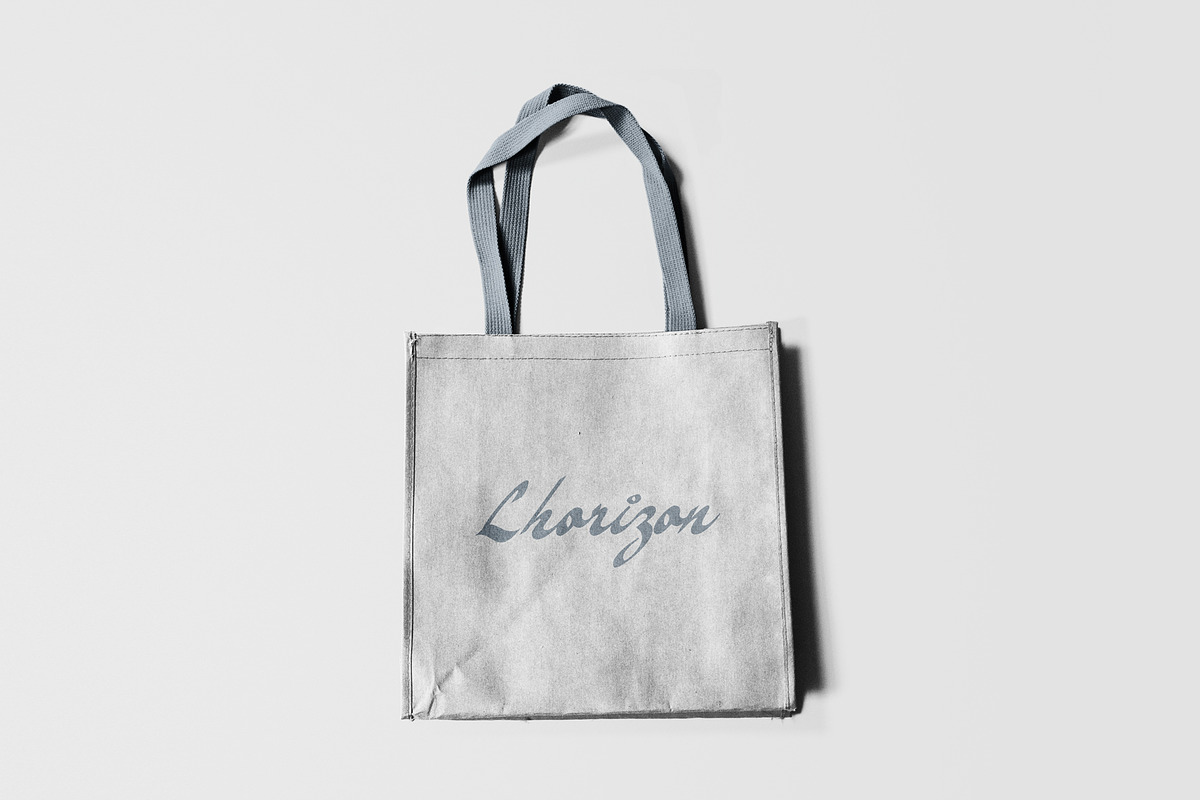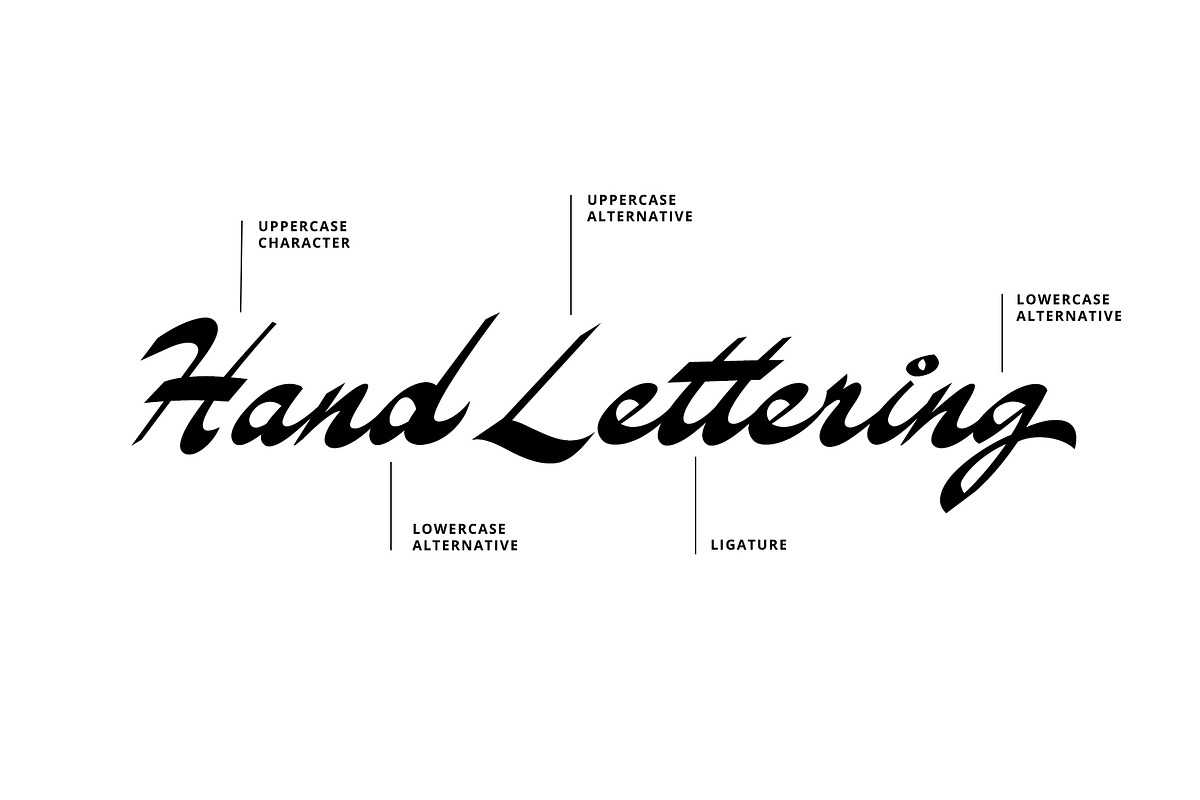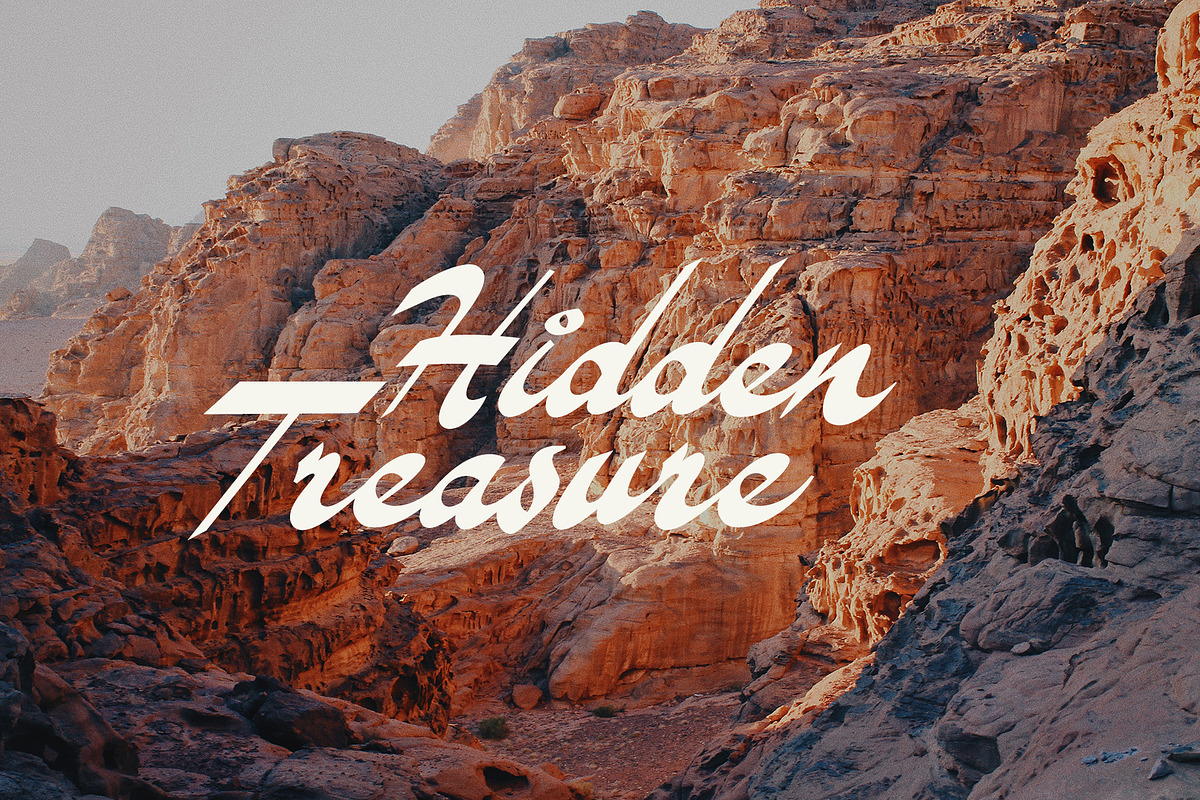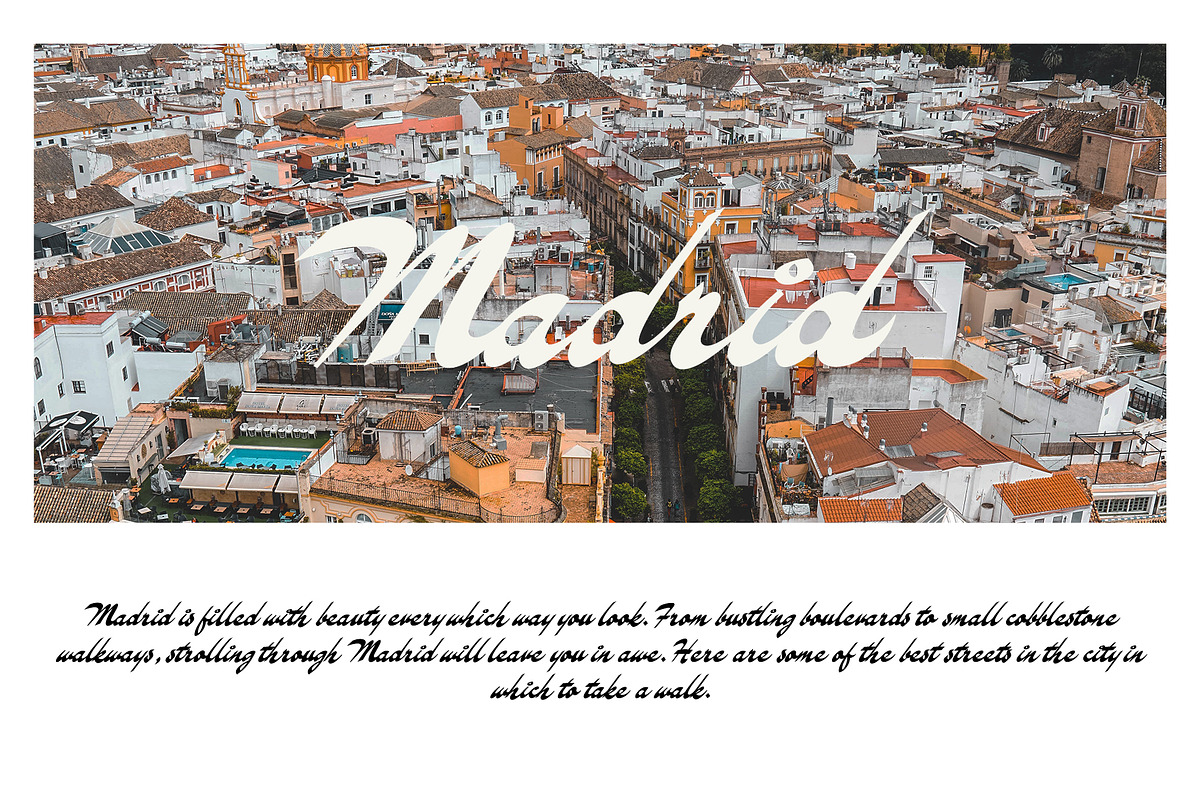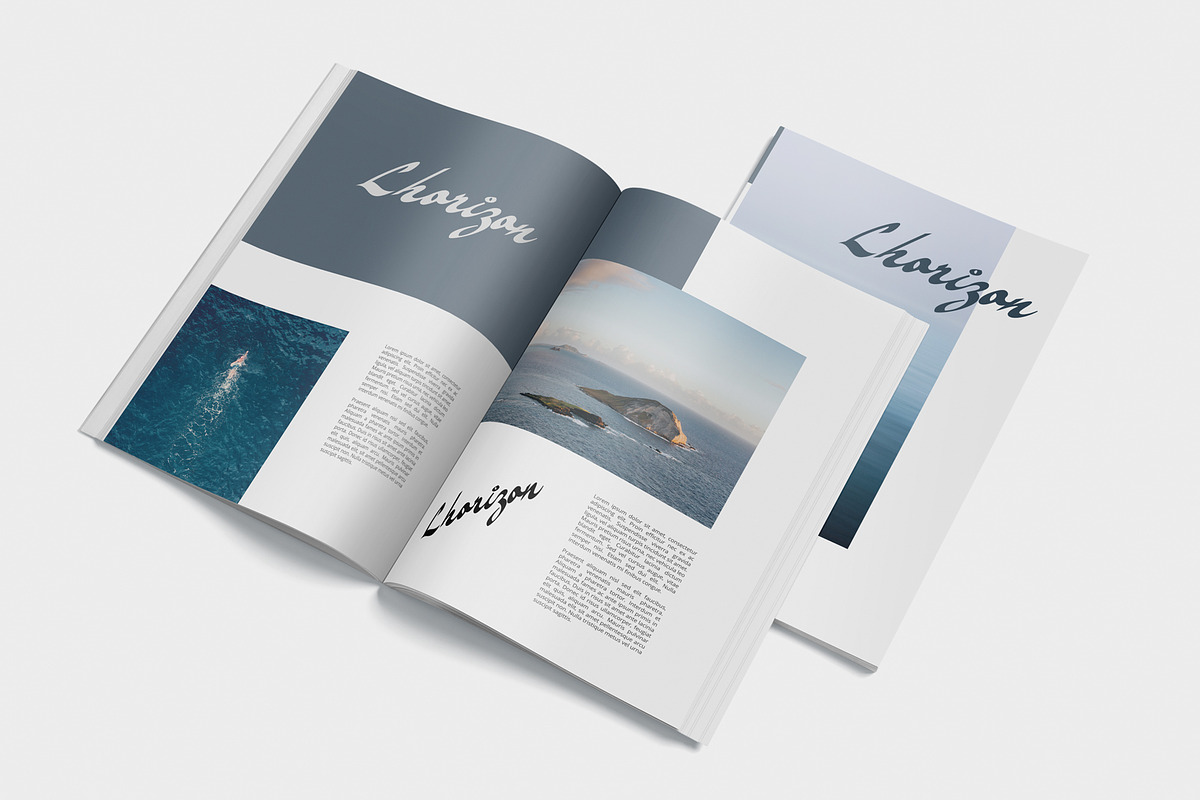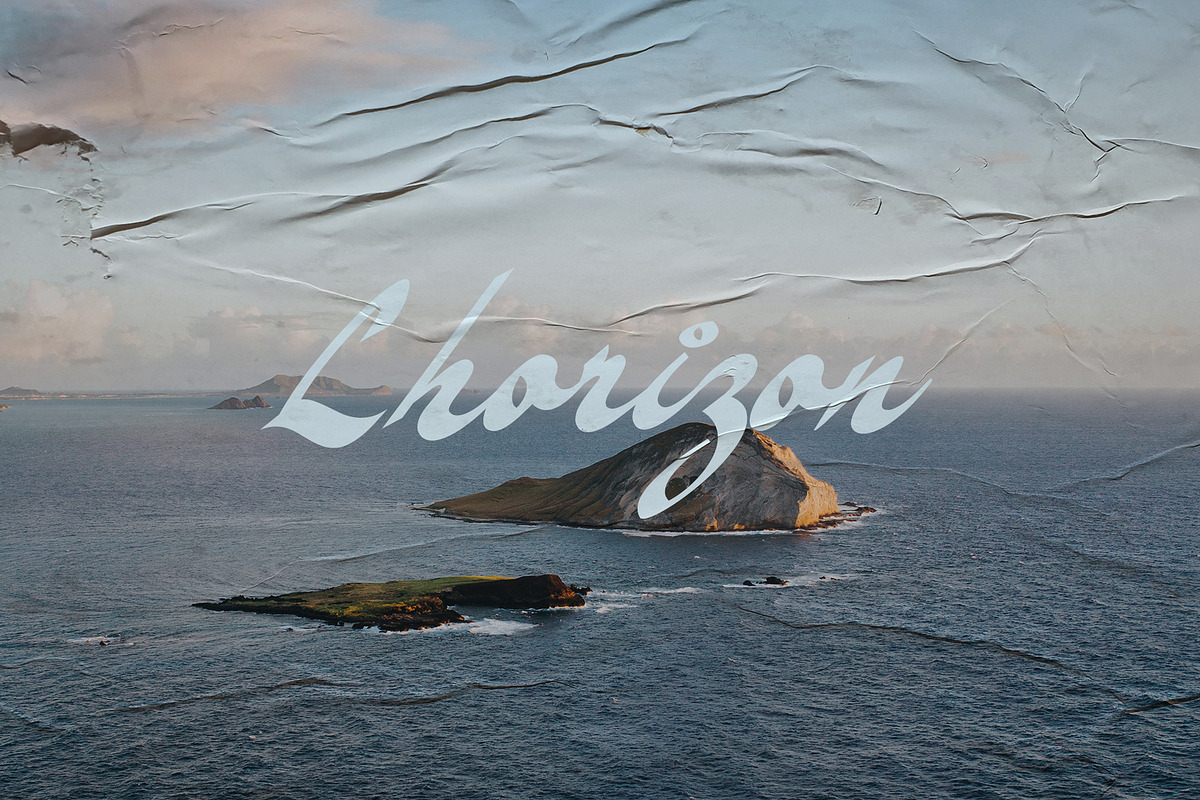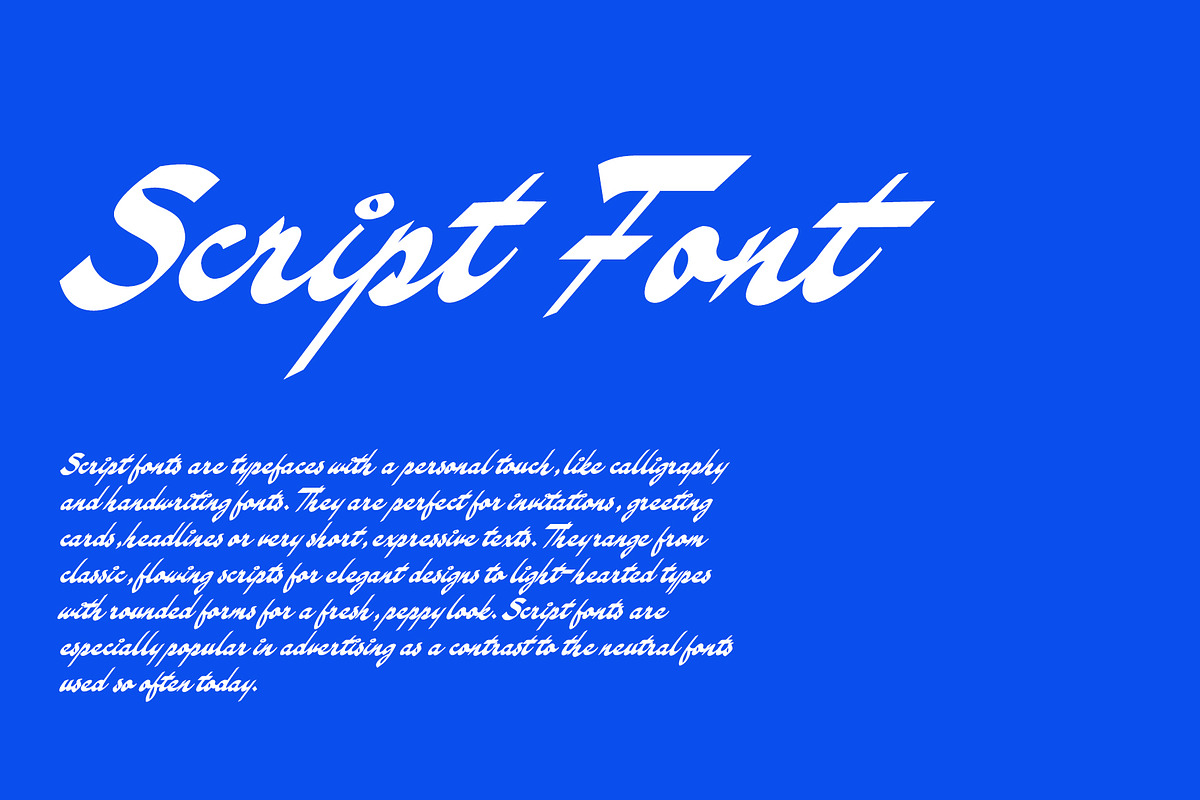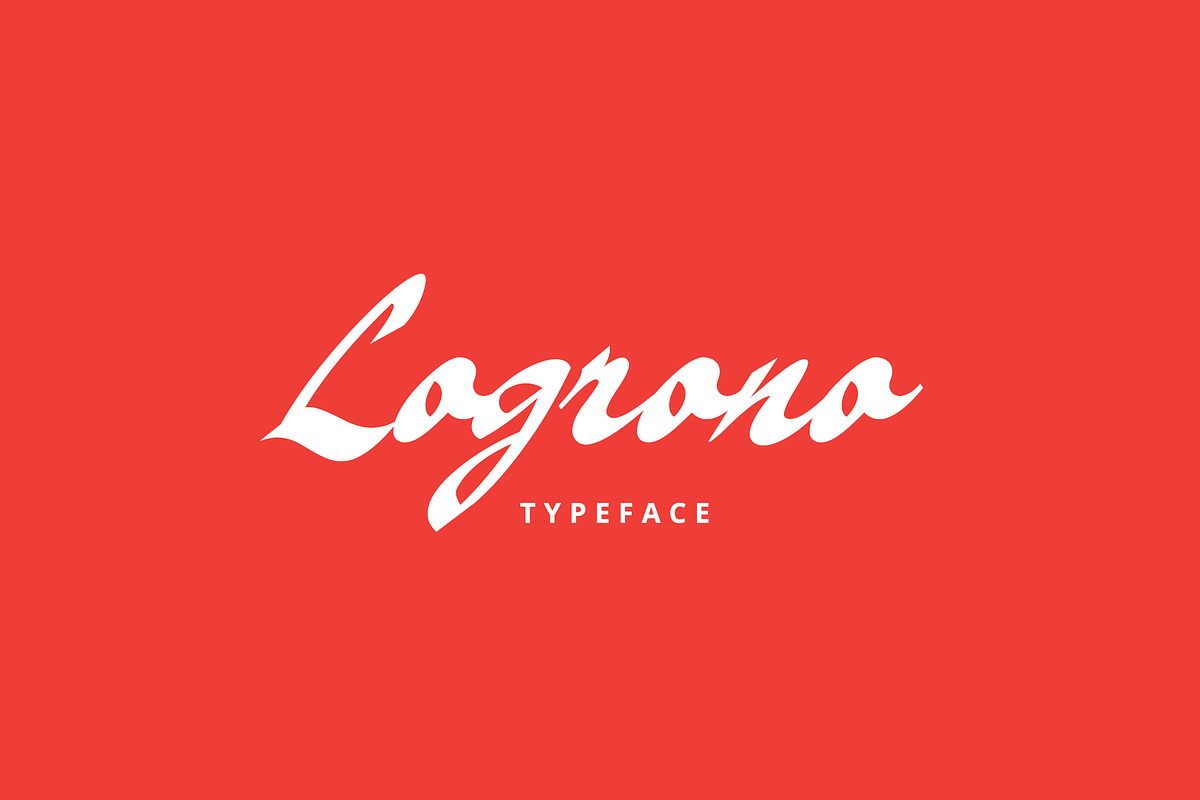
Logrono Script Font
logorono is a font script that has a thick, thin and strong style that has an elegant, classic and unique impression. logrono font is developed from several characters consisting of uppercase, lowercas, punctuation & symbols, numbers, multi-language characters, ligature, and alternative characters.
because it has the impression of an elegant and classic font that is very suitable for branding boutique logos, store logos, or you can use it for other design purposes such as posters, t shirt designs, cards, branding designs, and other design needs.
Alternative character
multi language support